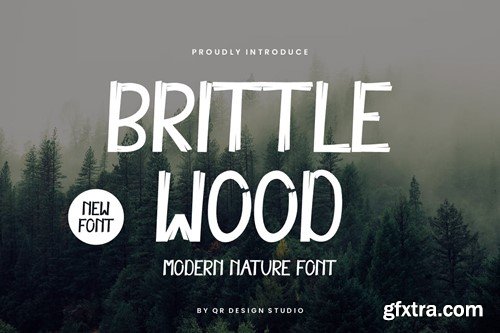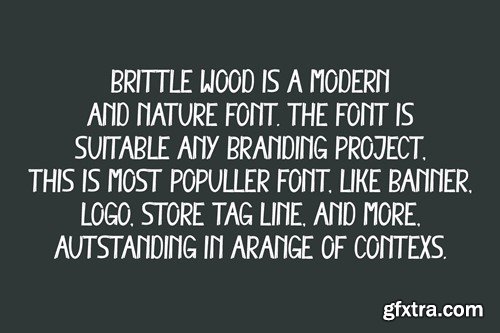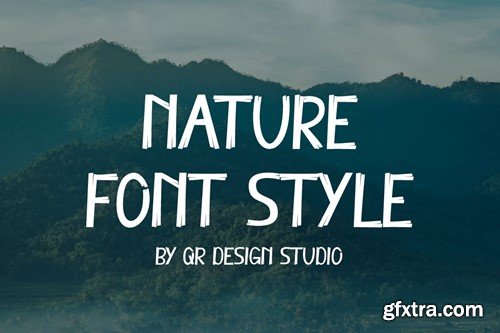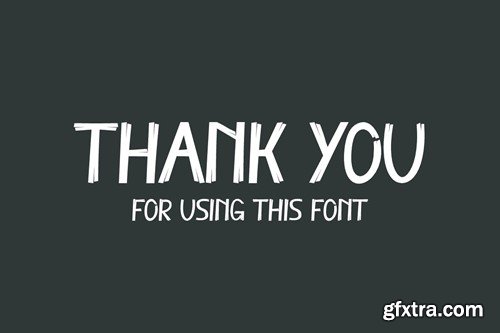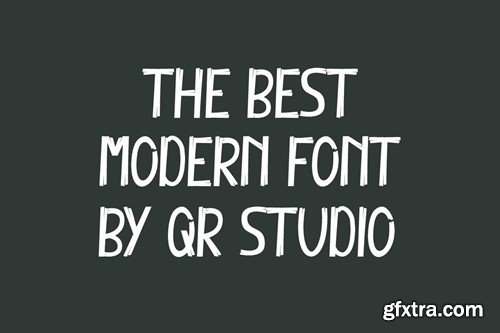
脆木 - 天然Font MLNB3LV
Brittle Wood - Nature Font MLNB3LV
Brittle Wood - Nature Font
Brittle Wood - Nature Font is a hand drawn and authentic display font. The font is suitable for any branding project like poster, logo, sport, and many more. Outstanding in a wide range of contexts.